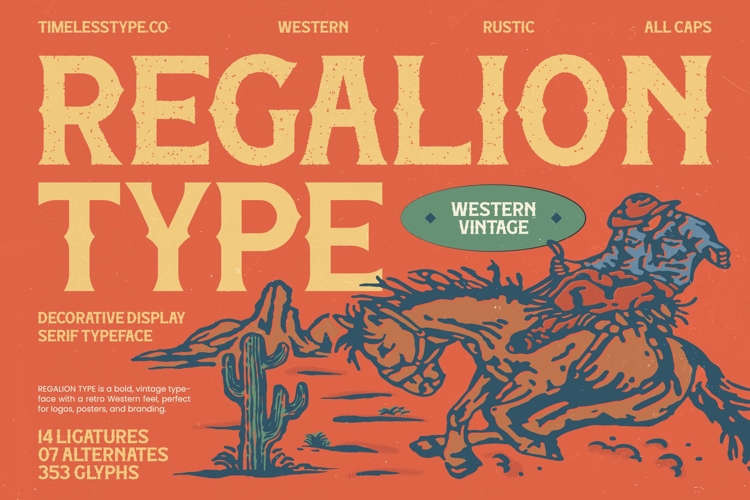
Regalion Type - Decorative Display Serif Typeface
Regalion Type - Decorative Display Serif Typeface, the ultimate typographic solution for designs requiring a powerful, nostalgic voice. This bold display serif immediately captures the spirit of the American frontier, fusing classic design weight with the undeniable charm of rustic vintage aesthetics. Its strong, unflinching all-caps letterforms ensure that your headlines command the visual landscape, making it perfect for high-impact, immediate design statements that resonate deeply with heritage and strength.